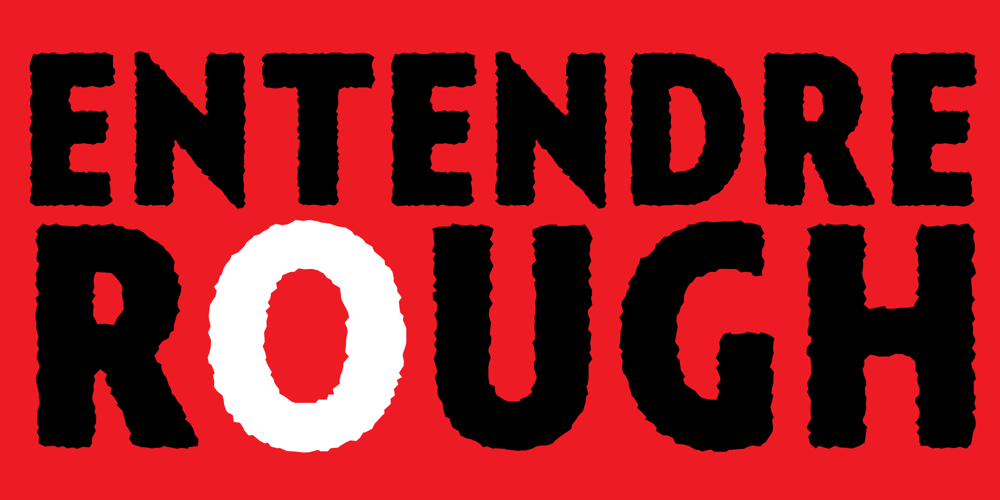
Entendre Rough
Entendre Rough font
Entendre Rough Font Family was designed by Ian Lynam and published by Wordshape. Entendre Rough contains 22 styles and family package options. Entendre Rough defies the conventions of most distressed typefaces, as it is an actual text typeface family. Sure, you can use it for your big display type, but you can also use it for body text.Entendre Rough is a stately, commanding and handsome distressed sans serif typeface family that pulls reference from Trajan capitals, the history of English calligraphy, and a variety of other sources to summon a sense of warmth, consideration, trust and authority. Entendre Rough spans 22 weights and styles including Regular and Condensed versions. The large x-height and refined characteristics of the family lend the family a sober and sophisticated appearance that is suitable for both print design and on-screen use. Entendre Rough includes Central and Eastern European language support as well as Western European language support, including Greek and Cyrillic.Entendre Rough’s generous x-height and medium-length ascenders and descenders offer pronounced readability, making the family useful for text typesetting both in print and on screen. Within, humanist elements are tempered with monumental construction, making the heavier weights go-tos for display design work. All of the Entendre Rough family of typefaces feature Western, Eastern and Central European language support alongside nuanced Greek and Cyrillic.Entendre Rough pairs well with our non-distressed Entendre family and our rounded sans serif family Elpy, sharing similar proportions and spacing.